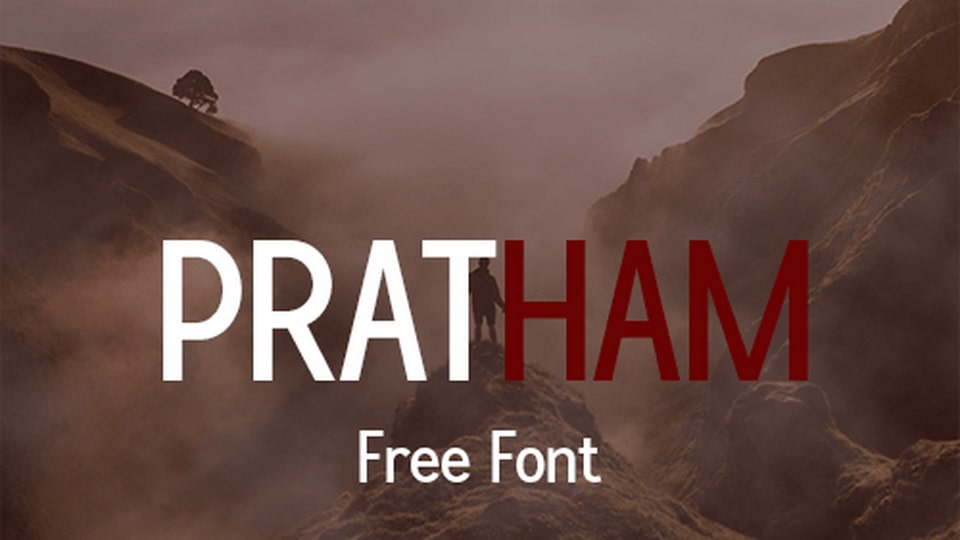
Download Pratham font, a typeface that was made for business, branding, and clear design. Pratham made to help you start strong and keep things professionals.